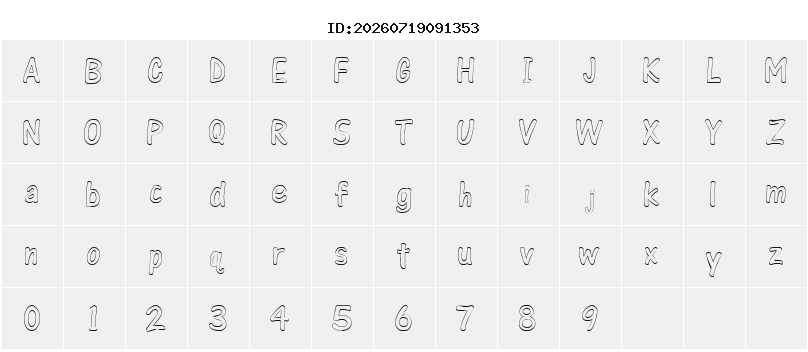
ColorFont Preview
• Font Name: ColorFont
• Full Font Name: ColorFont
• PostScript Name: ColorFont
About ColorFont.ttf
ColorFont.ttf is a modern, elegant sans-serif font designed for ultimate readability and visual harmony. Perfect for branding, headlines, web design, and print materials.